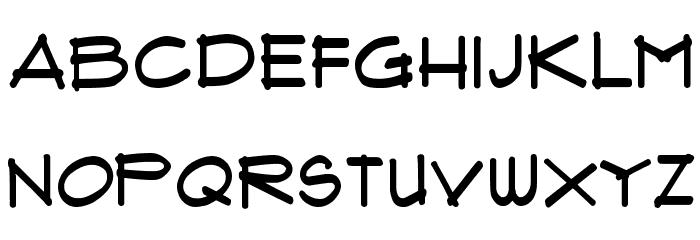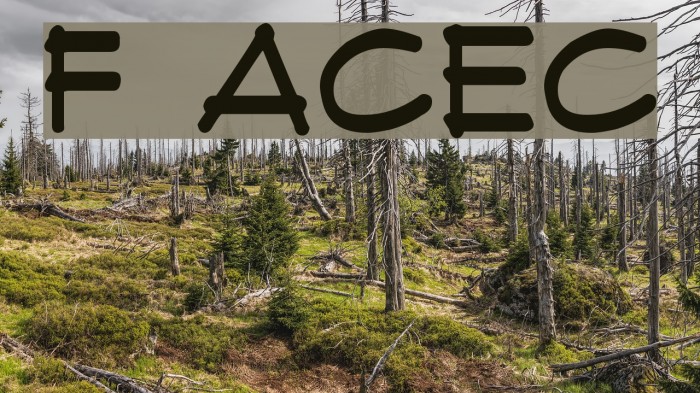
Flux Architect Font
This font exhibits a playful and modern style with a unique architectural flair. The characters are bold and rounded, giving them a friendly and approachable appearance. Each letter features a consistent stroke width, contributing to a uniform look across the alphabet. The design incorporates subtle geometric elements, reminiscent of architectural sketches, which add a creative and artistic touch. The numerals and special characters maintain the same stylistic approach, ensuring cohesion throughout. This font is well-suited for projects that require a contemporary and informal aesthetic.
A playful, modern font with architectural elements and rounded, bold characters.
- Proposed Projects: Ideal for children's books, creative branding, architectural presentations, and playful posters.